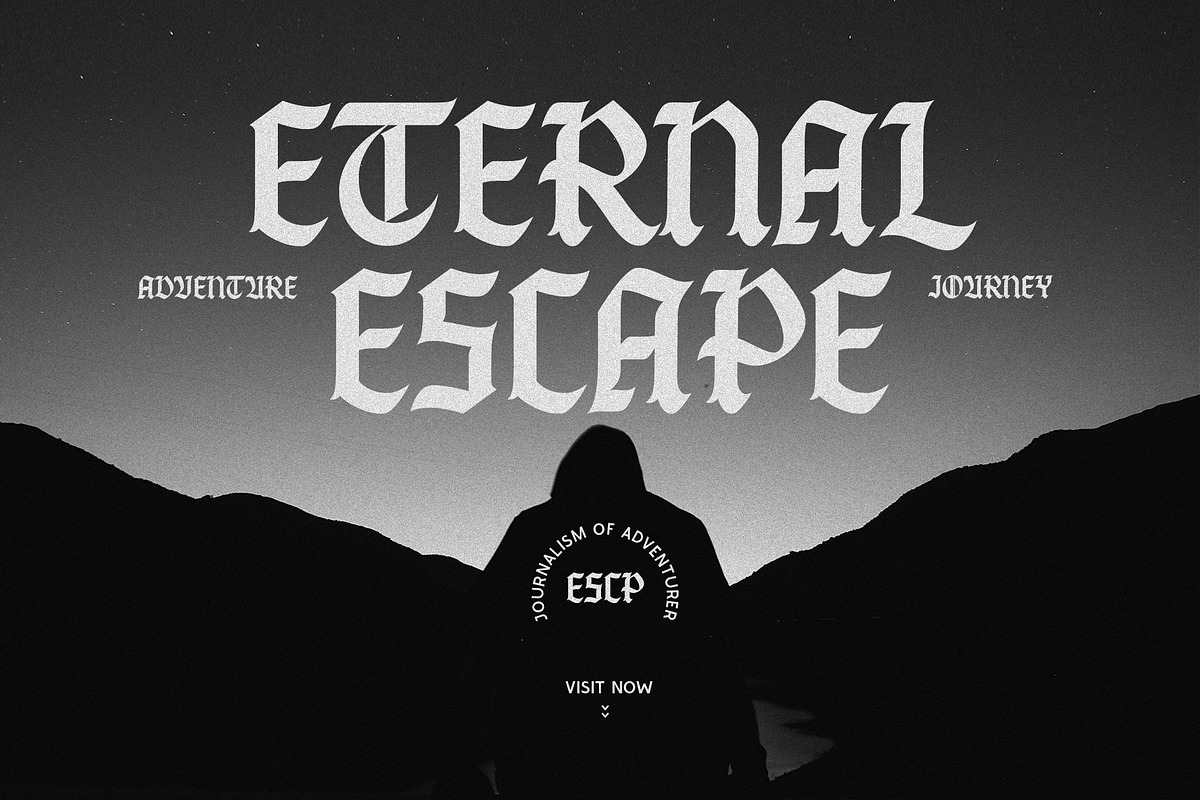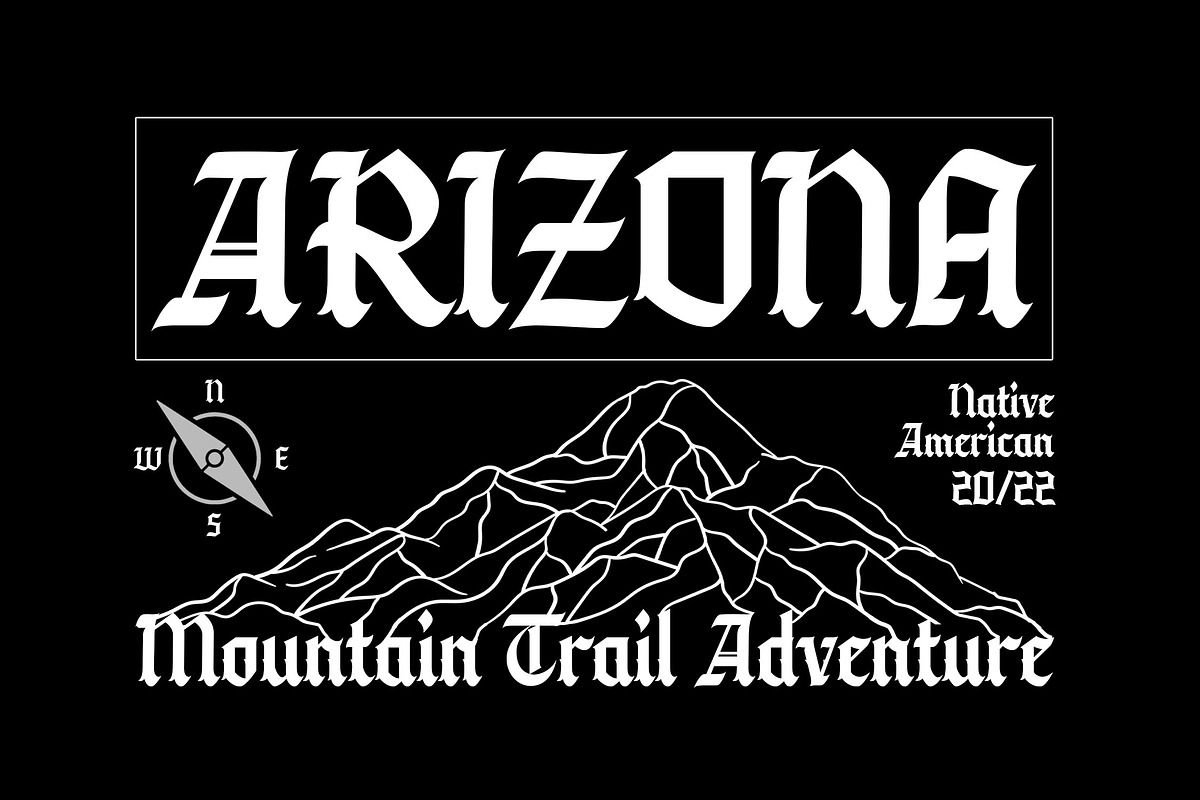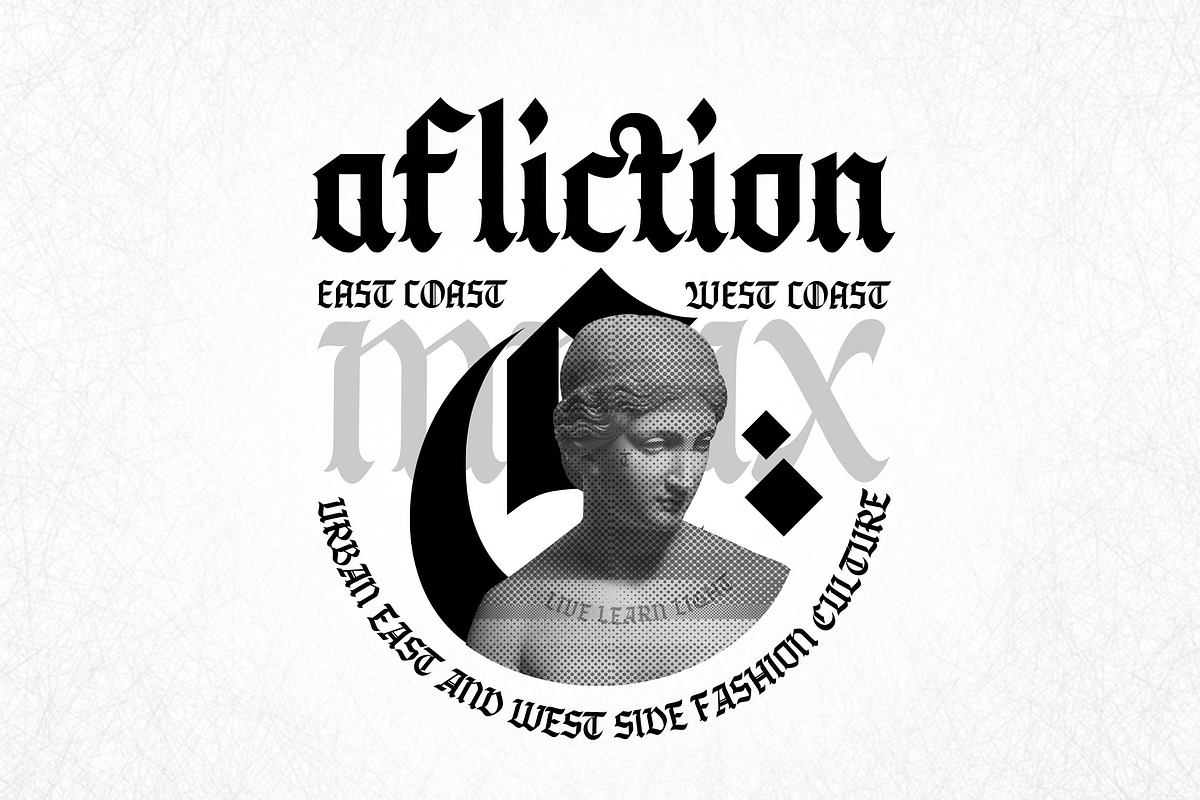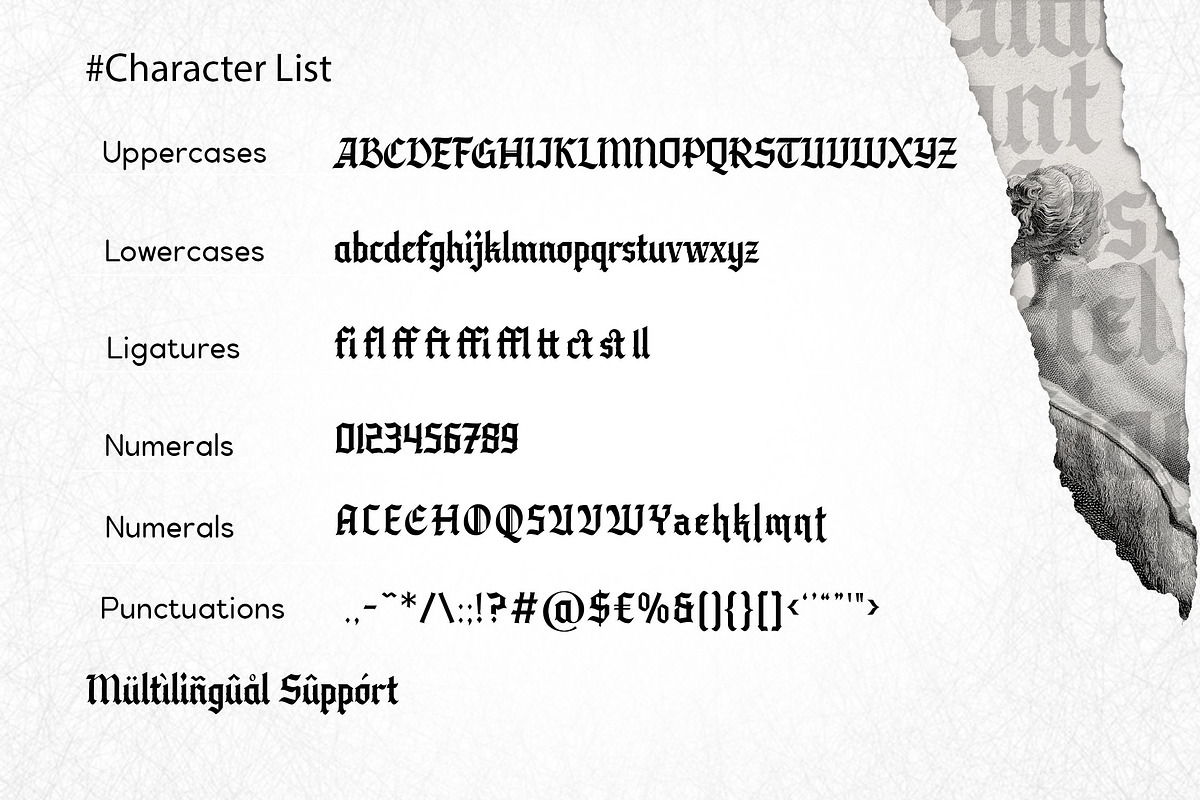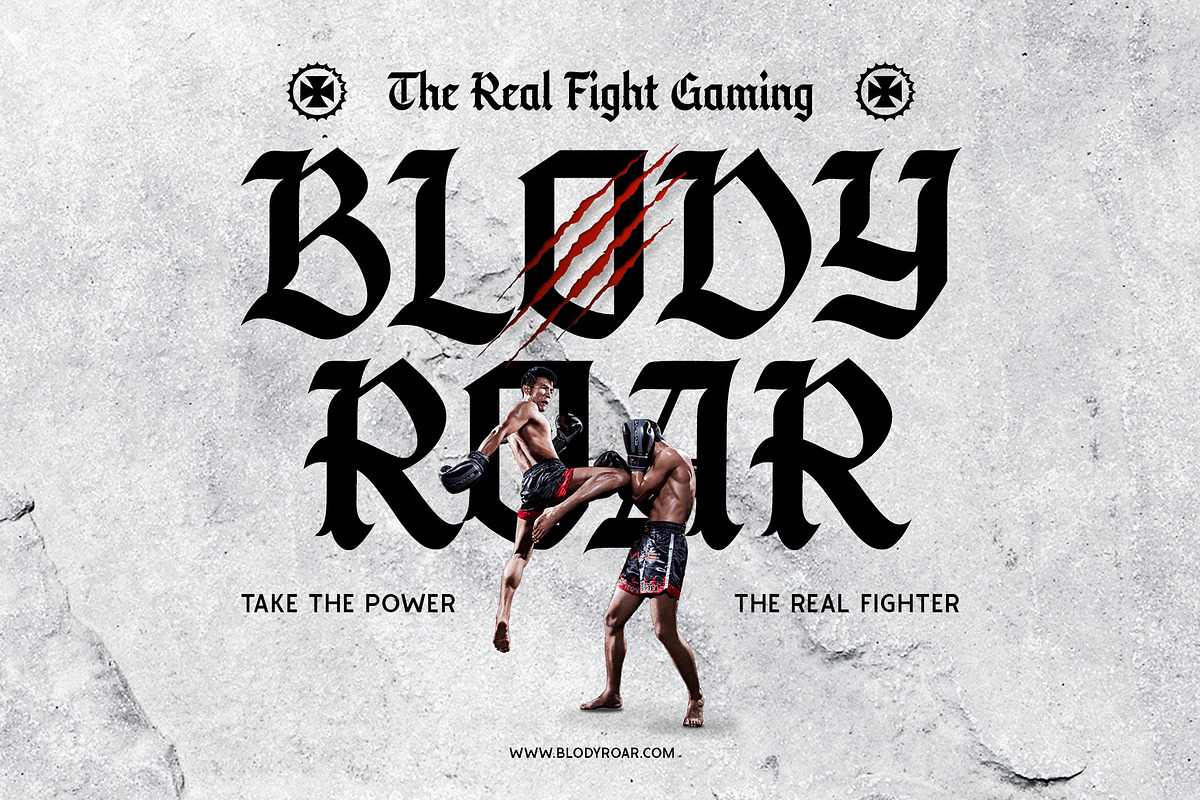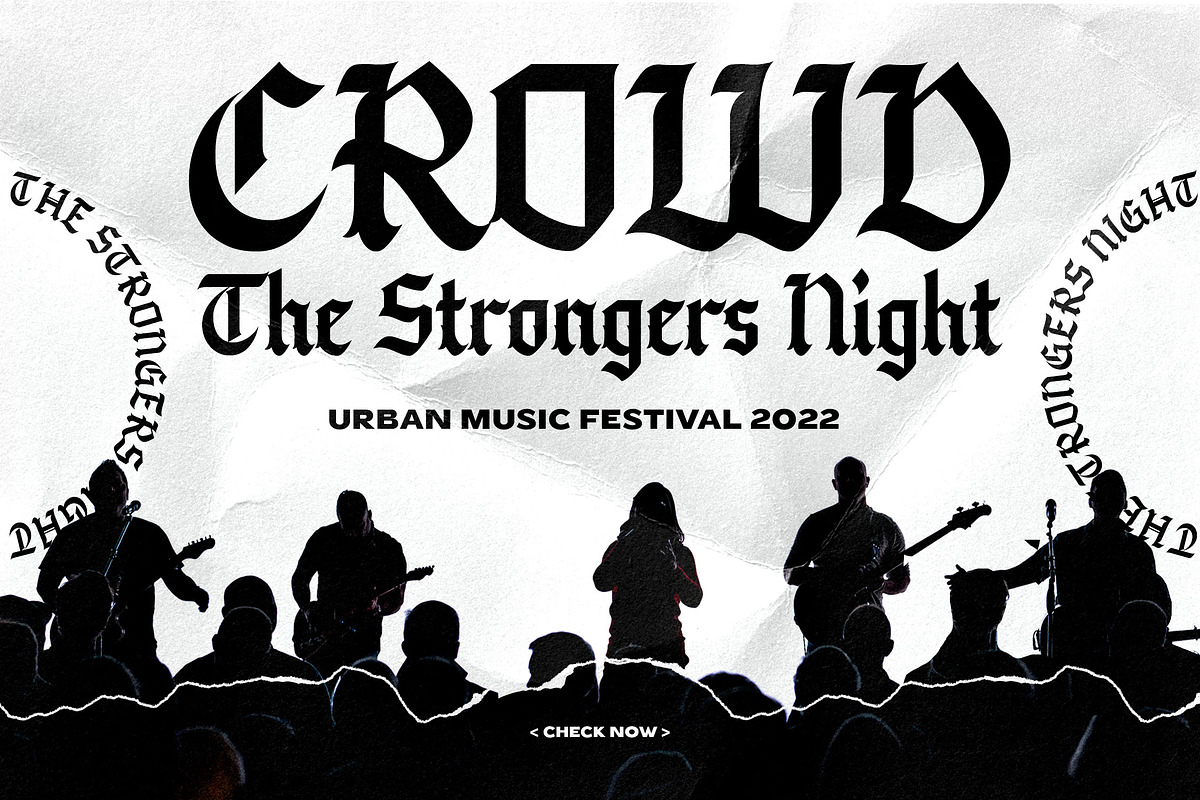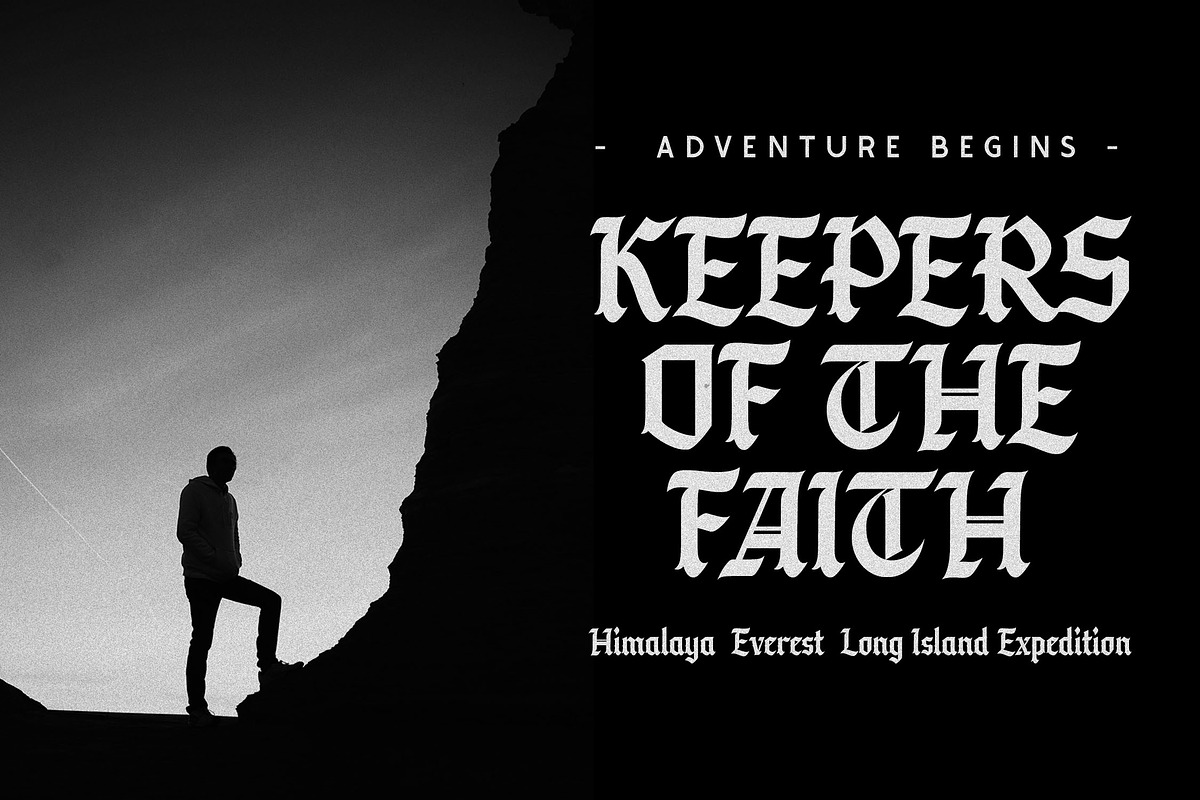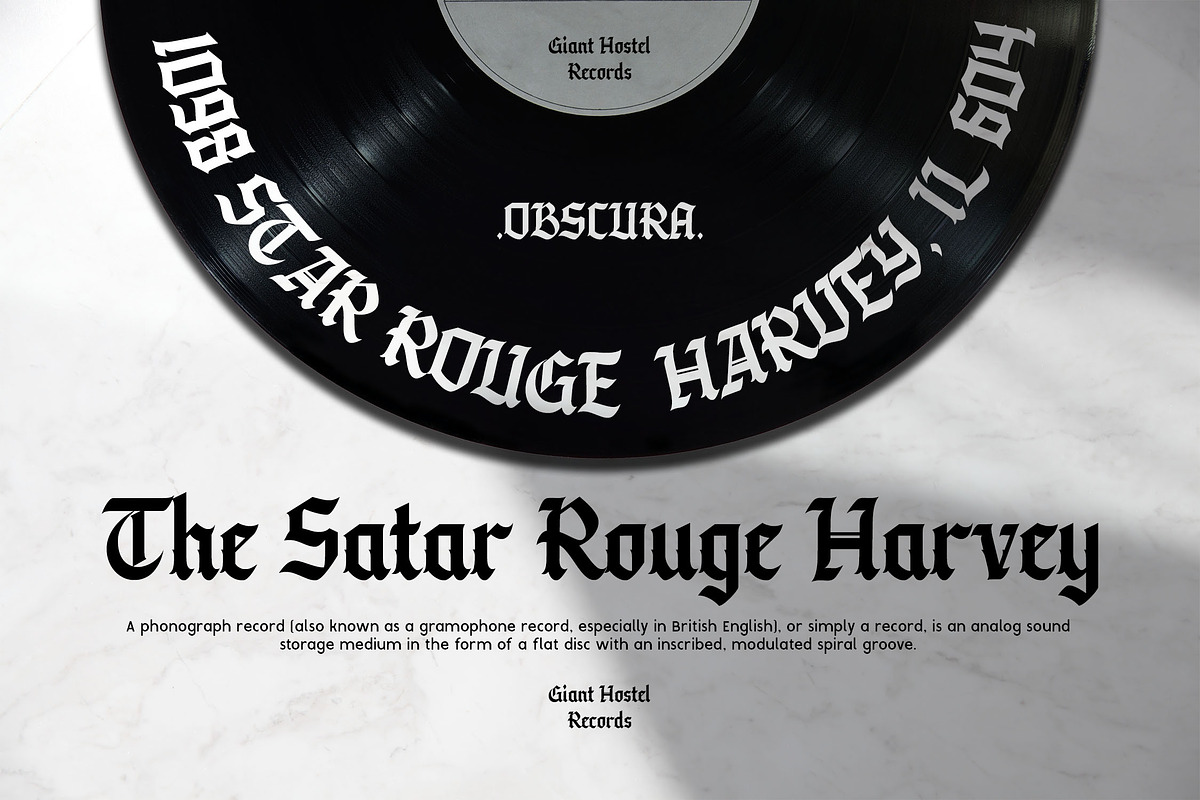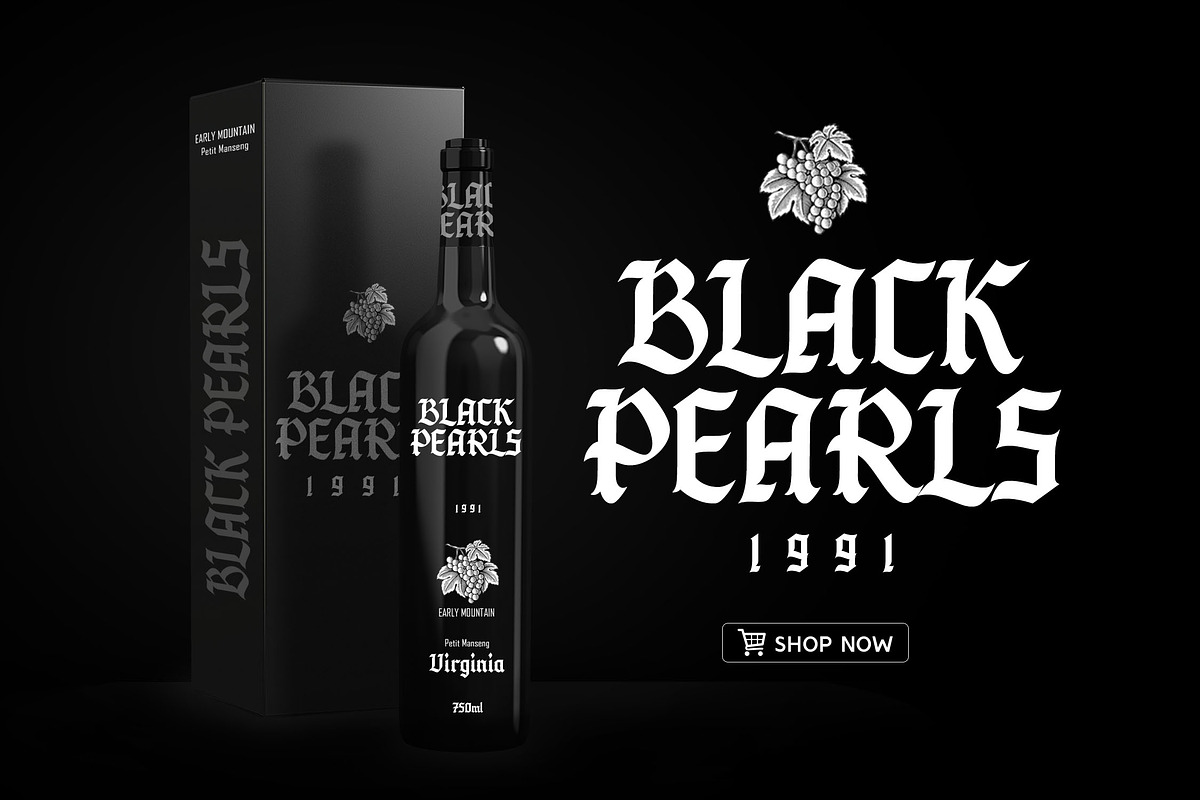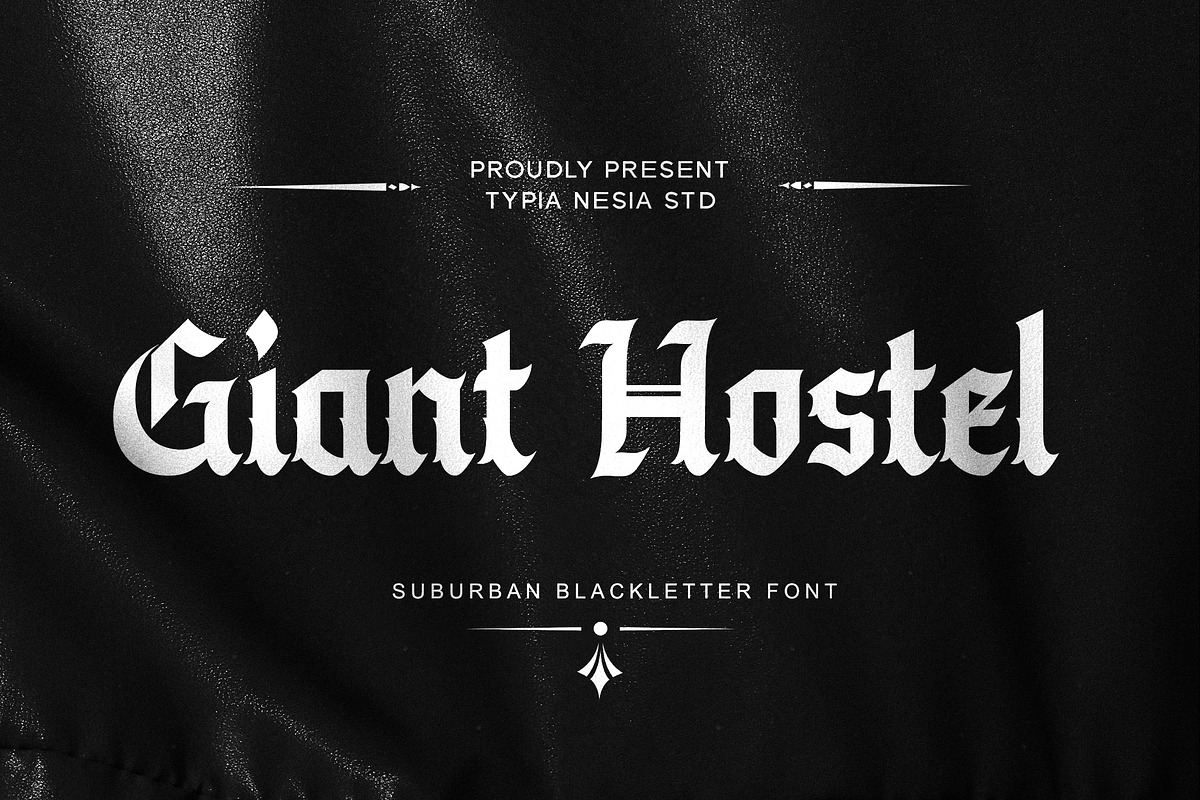
Giant Hostel
Giant Hostel - SubUrban Blackletter Font - Decorative Display Font
Suitable for any design needs : logo, branding, modern advertising design, halloween, gothic design, apparel, hardcore music, animation or movie, logos, poster quote, book / cover Title, editorial design, website / blog, card, custom mug, pillow, t-shirts, and any gothic hand-lettered needs.